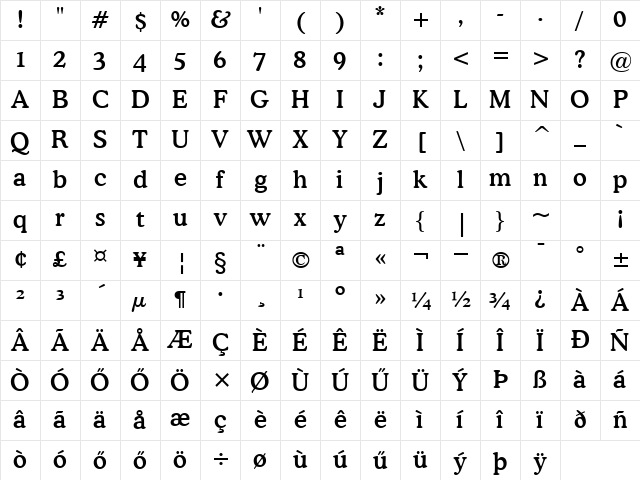
H_Cooper Medium BT Regular
H_Cooper Medium BT Family
Complete H_Cooper Medium BT Regular glyph index. Displaying only characters natively supported by H_Cooper Medium BT Regular font.
Design Context for H_Cooper Medium BT
H_Cooper Medium BT is a composed and adaptable typeface that performs quietly and consistently across a wide range of design contexts.